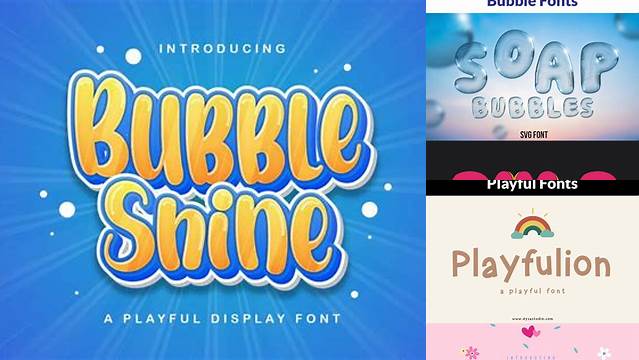
Best Bubble Fonts: Fun & Playful Styles For Word
Bubble fonts, with their rounded, playful shapes, can add a touch of whimsy and fun to any project. Whether you're designing a children's book, creating eye-catching posters, or just want to inject some personality into your documents, choosing the right bubble font is key. And guess what? You can totally use them in Word! Let's dive into the world of the best bubble fonts for Word and explore how they can bring your ideas to life. We'll cover a variety of styles and where to find them, so you can pick the perfect one for your next creative endeavor. Get ready to add some bubbly fun to your text!
1. Bubble Font Styles for Word
When it comes to bubble fonts for Word, the options are pretty diverse. You've got everything from super round and cartoony fonts to more refined and elegant bubble styles. Think about the overall vibe you're going for. A super bubbly font might be perfect for a kid's birthday invitation, while a slightly more sophisticated bubble font could work well for a fun, informal presentation. Choosing the right style is all about matching the font's personality to your project's needs. Some bubble fonts even come with extra decorative elements like stars or sparkles, adding an extra layer of fun. So, explore different styles and see what catches your eye!
2. Free Bubble Letter Fonts for Word
3. Premium Bubble Fonts for Word
5. Using Bubble Writing Fonts in Microsoft Word
Using bubble writing fonts in Microsoft Word is a piece of cake! Once you've installed your chosen font, simply open Word and select the font from the font dropdown menu. Type your text, and voila! Your words will appear in bubbly glory. You can adjust the font size, color, and other formatting options just like you would with any other font. Experiment with different font sizes and colors to see what looks best for your project. Bubble fonts can be especially effective for headings, titles, and other display text. So, have fun and get creative with your bubble writing fonts!
6. Best Bubble Letter Font Generators
Need a quick and easy way to create bubble letters? Check out online bubble letter font generators! These tools allow you to type in your text and instantly generate a bubble letter design. Some generators even let you customize the colors and outlines of the letters. While these generators are great for creating quick graphics, keep in mind that they may not offer the same level of quality and customization as a dedicated font. However, they're a fantastic option for creating fun and informal designs. Just search for "bubble letter generator" on Google and you'll find plenty of options to choose from. Have fun experimenting!
7. Bubble Script Fonts for Word
Looking for something a little more elegant than your typical bubble font? Try a bubble script font! These fonts combine the rounded shapes of bubble letters with the flowing lines of script fonts. The result is a font that's both playful and sophisticated. Bubble script fonts are perfect for invitations, greeting cards, and other projects where you want to add a touch of personality. They can also be used to create unique logos and branding materials. So, if you're looking for a font that's both fun and stylish, check out bubble script fonts for Word!
8. Bold Bubble Fonts for Word
Sometimes, you need a font that really stands out. That's where bold bubble fonts come in! These fonts have thicker strokes and bolder shapes, making them perfect for headlines, posters, and other applications where you want to grab attention. Bold bubble fonts are especially effective when used in combination with contrasting colors. They can also be used to create a sense of fun and excitement. So, if you want your text to really pop, consider using a bold bubble font.
9. Cute Bubble Letter Fonts for Word
For a touch of sweetness and charm, explore cute bubble letter fonts. These fonts often feature rounded edges, whimsical shapes, and adorable details. They're perfect for children's books, birthday invitations, and other projects that call for a playful and endearing vibe. Cute bubble letter fonts can also be used to create a sense of warmth and friendliness. So, if you want to add a dose of cuteness to your designs, check out cute bubble letter fonts for Word.
10. Cartoon Bubble Fonts for Word
Bring your designs to life with cartoon bubble fonts! These fonts are inspired by the bold and expressive typography used in comic books and cartoons. They often feature exaggerated shapes, dynamic lines, and a sense of energy. Cartoon bubble fonts are perfect for creating eye-catching posters, fun logos, and engaging social media graphics. They can also be used to add a touch of humor and whimsy to your projects. So, if you want to inject some cartoonish flair into your designs, explore the world of cartoon bubble fonts.
11. Outline Bubble Fonts for Word
Create a unique and stylish look with outline bubble fonts. These fonts feature hollow letters with a defined outline, giving them a clean and modern aesthetic. Outline bubble fonts are perfect for logos, headings, and other design elements where you want to create a subtle yet impactful effect. They can also be used to add a sense of depth and dimension to your text. So, if you're looking for a font that's both stylish and versatile, consider using an outline bubble font.
12. 3D Bubble Fonts for Word
Add a sense of depth and realism to your designs with 3D bubble fonts. These fonts create the illusion of three-dimensional letters, making your text pop off the page. 3D bubble fonts are perfect for posters, flyers, and other promotional materials where you want to grab attention. They can also be used to create eye-catching logos and website graphics. So, if you want to add a touch of realism to your designs, explore the world of 3D bubble fonts.
13. Fun Bubble Letter Fonts for Word
Inject some joy and playfulness into your designs with fun bubble letter fonts. These fonts are designed to evoke a sense of happiness and excitement, making them perfect for children's projects, party invitations, and other lighthearted applications. Fun bubble letter fonts often feature bright colors, whimsical shapes, and playful details. They can also be used to create a positive and engaging atmosphere. So, if you want to spread some cheer with your typography, check out fun bubble letter fonts for Word.
14. Cool Bubble Writing Fonts for Word
For a trendy and stylish look, explore cool bubble writing fonts. These fonts often feature unique shapes, modern designs, and a sense of urban flair. Cool bubble writing fonts are perfect for logos, posters, and other design elements where you want to create a contemporary and edgy vibe. They can also be used to add a touch of personality and individuality to your projects. So, if you're looking for a font that's both stylish and unique, consider using a cool bubble writing font.
15. Best Bubble Fonts for Kids
When designing for children, bubble fonts are a fantastic choice. Their rounded shapes and playful designs are inherently appealing to kids. Look for fonts that are easy to read and have a friendly, approachable feel. Bright colors and fun embellishments can also add to the appeal. The best bubble fonts for kids are those that capture their imagination and make learning fun. Think about fonts used in children's books, educational materials, and birthday invitations.
16. Bubble Fonts for Logo Design
Using bubble fonts for logo design can give your brand a playful and approachable identity. However, it's important to choose a font that aligns with your brand's overall message and target audience. A bubble font might be perfect for a children's entertainment company, but it might not be suitable for a financial institution. Consider the font's legibility and how it will look at different sizes. A well-chosen bubble font can make your logo memorable and distinctive.
17. Bubble Fonts for Party Invitations
Bubble fonts are a natural fit for party invitations, especially for children's parties. They add a sense of fun and excitement, setting the tone for a festive event. Choose a font that's easy to read and complements the party's theme. Bright colors and playful graphics can further enhance the invitation's appeal. Remember to include all the essential information, such as the date, time, and location of the party. A bubble font can make your invitations stand out and get guests excited to celebrate.
18. Bubble Fonts for Posters
When designing posters, you want a font that grabs attention and conveys your message effectively. Bubble fonts can be a great choice, especially for posters targeting a younger audience or promoting a fun event. Use a bold bubble font to make your headlines pop and choose a color that contrasts well with the background. Keep the text concise and easy to read, and make sure the font size is appropriate for the viewing distance. A well-designed poster with a bubble font can attract viewers and leave a lasting impression.
19. Bubble Fonts for Social Media Graphics
In the fast-paced world of social media, it's important to use graphics that stand out from the crowd. Bubble fonts can help you achieve this, adding a touch of personality and playfulness to your posts. Use bubble fonts to create eye-catching headlines, quotes, and captions. Experiment with different colors and styles to see what resonates with your audience. Remember to keep your graphics consistent with your brand's overall aesthetic. A well-designed social media graphic with a bubble font can increase engagement and attract new followers.
20. Pairing Bubble Fonts with Other Fonts
While bubble fonts can be fun and eye-catching, they're often best used in moderation. Pairing them with other fonts can create a more balanced and professional look. Consider using a bubble font for headlines and titles, and then using a more traditional font for body text. Choose fonts that complement each other in terms of style and weight. A sans-serif font like Arial or Helvetica can pair well with a bubble font, providing a clean and readable contrast. Experiment with different combinations to find what works best for your project.
21. Customizing Bubble Fonts in Word
Word offers several options for customizing your bubble fonts. You can change the font size, color, and style to create a unique look. Experiment with different font effects, such as shadow, outline, and glow, to add depth and dimension to your text. You can also adjust the spacing between letters and words to improve readability. With a little creativity, you can transform a standard bubble font into something truly special.
22. Bubble Fonts for Branding
Using bubble fonts for branding can be a bold move, but it can pay off if done right. A bubble font can convey a sense of playfulness, creativity, and approachability. However, it's important to consider your target audience and brand personality before choosing a bubble font for your logo or marketing materials. A bubble font might be perfect for a toy store or a children's entertainment company, but it might not be suitable for a law firm or a financial institution. Choose a font that aligns with your brand's values and resonates with your target audience.
23. Bubble Fonts and Readability
While bubble fonts can be visually appealing, it's important to consider readability when using them. Some bubble fonts can be difficult to read, especially at small sizes. Choose a bubble font that is easy to read and has clear letterforms. Avoid using bubble fonts for long passages of text, as they can be tiring to read. Instead, use them for headlines, titles, and other short pieces of text. Always prioritize readability over aesthetics.
24. Bubble Fonts for Educational Materials
Bubble fonts can be a fun and engaging way to create educational materials for children. They can make learning more enjoyable and help to capture kids' attention. Use bubble fonts for worksheets, flashcards, and other learning activities. Choose fonts that are easy to read and have a playful, approachable feel. Bright colors and fun graphics can also add to the appeal. A well-designed educational material with a bubble font can make learning fun and effective.
25. Bubble Fonts in Graphic Design
In graphic design, bubble fonts can be used to create a variety of effects, from playful and whimsical to bold and attention-grabbing. They can be used in logos, posters, websites, and other design projects. When using bubble fonts, it's important to consider the overall design and how the font will fit in with the other elements. Choose a bubble font that complements the design and conveys the desired message. Experiment with different colors, sizes, and styles to create a unique and effective design.
26. Bubble Fonts for Business Use
While bubble fonts are often associated with fun and playfulness, they can also be used in business settings, depending on the industry and brand personality. A bubble font might be appropriate for a creative agency, a marketing firm, or a company that targets a younger audience. However, it's important to use bubble fonts judiciously and to choose fonts that are professional and easy to read. Avoid using bubble fonts in formal documents or communications. When used appropriately, bubble fonts can add a touch of personality and creativity to your business materials.
27. Finding the Right Bubble Font for Your Project
With so many bubble fonts to choose from, finding the right one for your project can be a challenge. Start by considering the overall tone and message you want to convey. Are you looking for something playful and whimsical, or something more bold and attention-grabbing? Think about your target audience and what they would respond to. Browse through different font websites and experiment with different styles. Don't be afraid to try out different combinations and to customize the font to your liking. With a little effort, you can find the perfect bubble font to bring your project to life.
28. The Psychology of Bubble Fonts
Bubble fonts evoke feelings of fun, playfulness, and nostalgia. Their rounded shapes and soft edges create a sense of comfort and approachability. They can also convey a sense of creativity and imagination. Because of these associations, bubble fonts are often used in projects targeting children or those with a youthful spirit. However, it's important to be mindful of the potential drawbacks of using bubble fonts. They can sometimes be perceived as unprofessional or unserious, so it's important to use them appropriately and in context.
29. Bubble Font Trends in 2024
As we move into 2024, bubble fonts continue to evolve and adapt to new design trends. We're seeing a resurgence of retro-inspired bubble fonts, as well as new variations that incorporate modern elements like gradients and 3D effects. There's also a growing trend towards using bubble fonts in combination with other font styles, creating a more dynamic and visually interesting look. Keep an eye out for new and innovative bubble fonts that push the boundaries of typography.
30. Future of Bubble Fonts
The future of bubble fonts looks bright, with designers continuing to explore new ways to incorporate them into their projects. We can expect to see even more innovative and creative bubble fonts in the years to come, as well as new applications for these versatile fonts. Whether you're a seasoned designer or just starting out, bubble fonts offer a fun and engaging way to add personality and style to your work. So, embrace the bubbly trend and let your creativity flow!